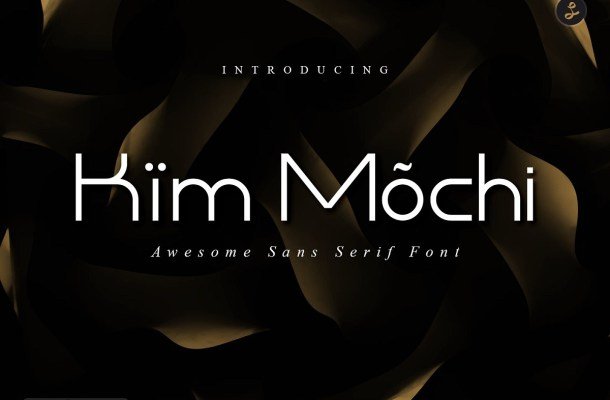
Kim Mochi Sans Display Font
Kim Mochi Sans Display Font is a soft and elegant rounded, hand-drawn sans serif font with warmth and character. It’s a versatile typeface with a soft, classic, vintage feel, perfect for branding and logo projects, blogs, instagram, fashion, photography, business cards, stationery and more…